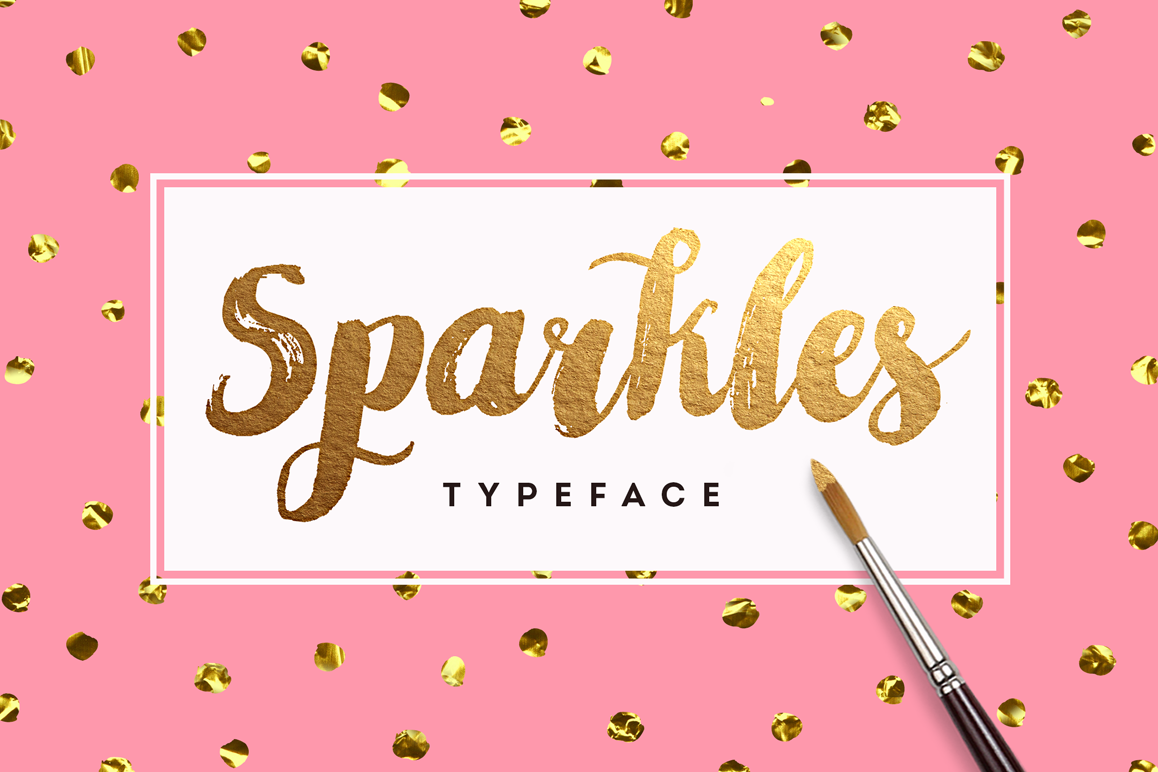
Sparkles Font + Big Bonus
Introducing Sparkles - a hand-painted typeface designed to help you create that look of truly hand-drawn and also shiny touch to any of your typographic projects. Sparkles typeface (Regular+ Italic) comes with upper and lowercase characters, large set of punctuation glyphs and numerals.
And now the most fun part of our project. We decided to make something really special and created a super trendy set of 15 Shiny Metallic Textures. Easily apply foil layer styles to font, vector elements, wedding invitations, prints, blog banners, greeting cards, patterns, brushes and more with one click! All the textures available as Photoshop styles ASL and PAT format.